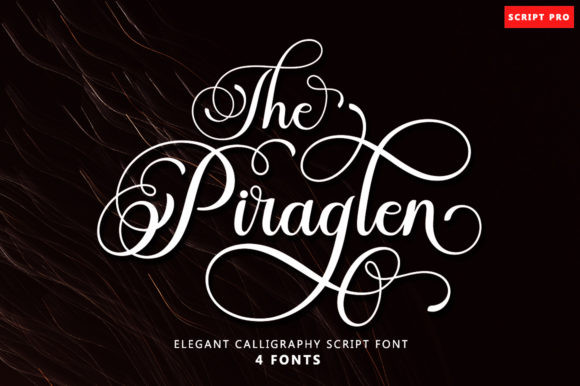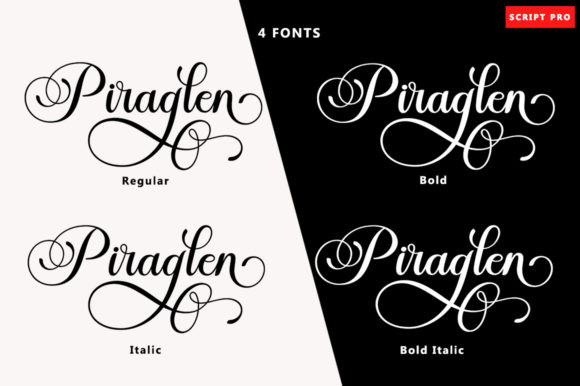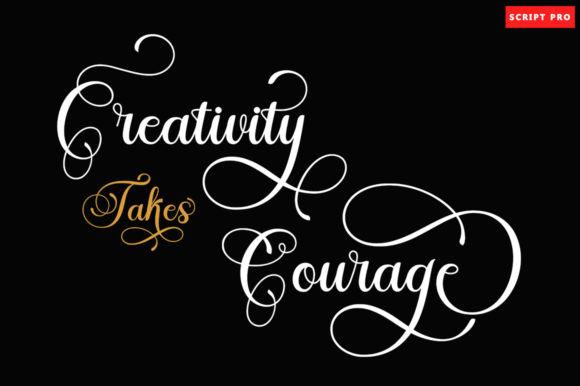
The Piraglen Font
The Piraglen FontThe Piraglen feels equally charming and elegant. It looks stunning on wedding invitations, thank you cards, quotes, greeting cards, logos, business cards and every other design which needs a handwritten touch.